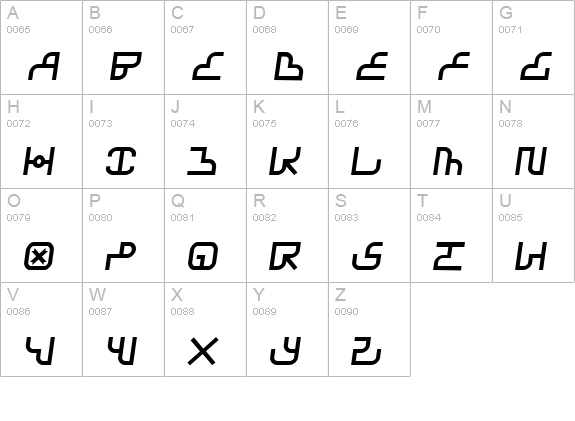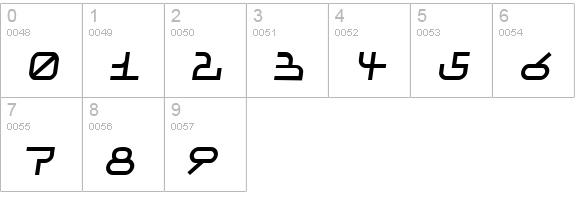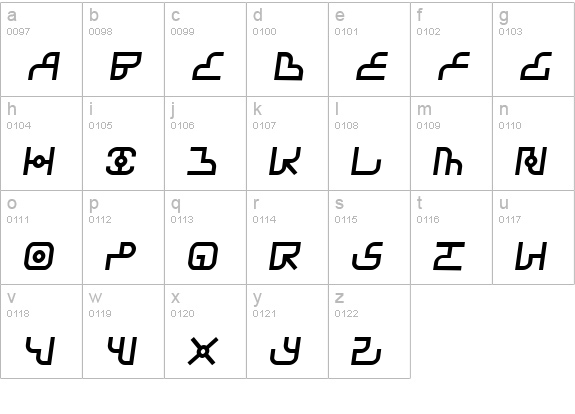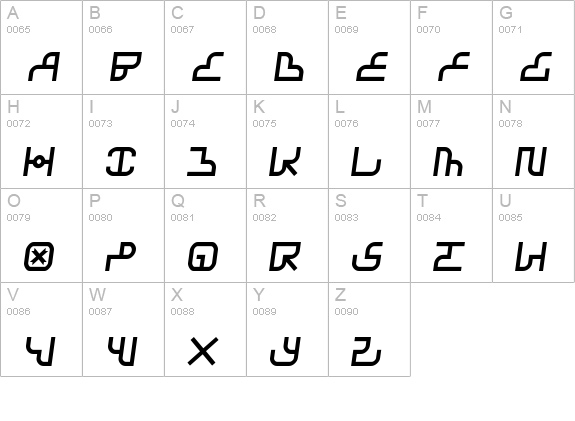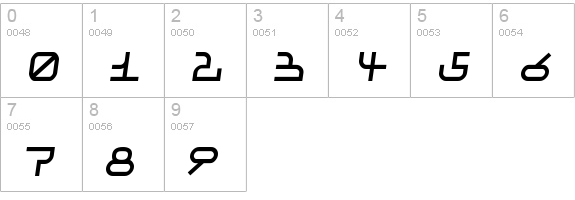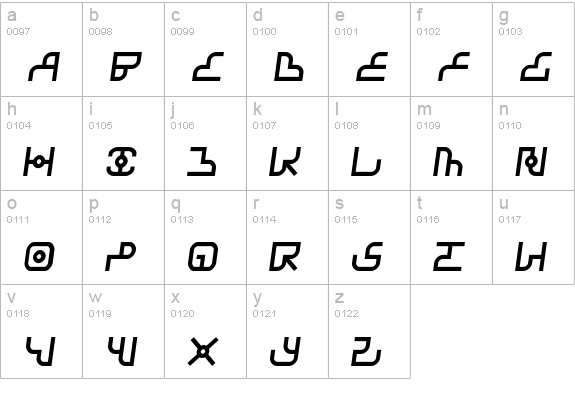
Airbag Street Font Details
Airbag Street font is a dynamic and modern typeface that exudes energy and creativity. With its bold lines and sleek design, this font is perfect for making a statement in any project. Whether you're designing a poster, logo, or website, Airbag Street font will add a touch of urban flair and sophistication. The best part? Airbag Street font is available for free download at FontsMarket.com. This means you can easily access this stylish and versatile font to elevate your designs without breaking the bank. So why wait? Download Airbag Street font today and let your creativity soar!